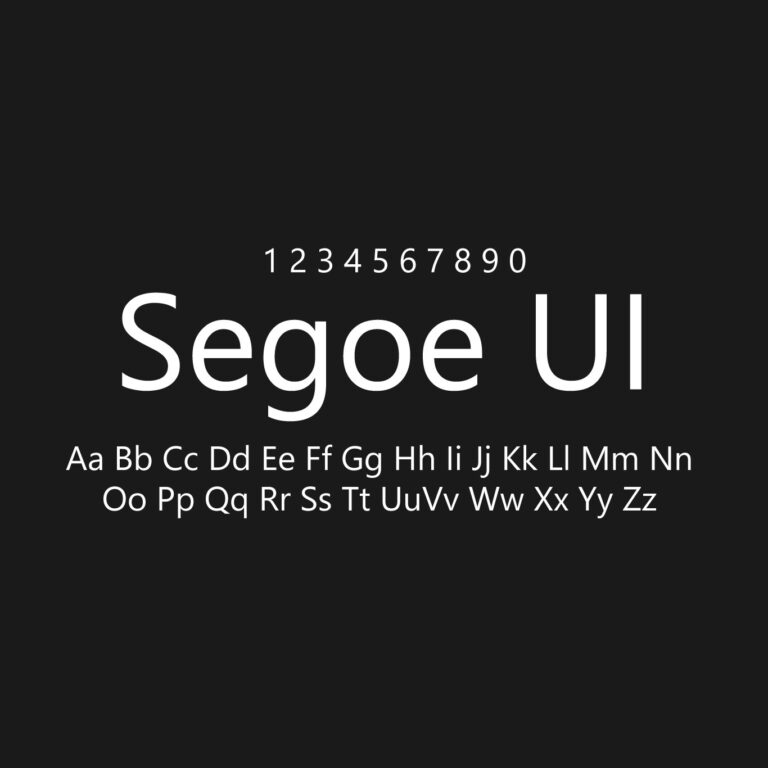
Segoe UI became widely recognized as the system interface font used across Microsoft products, especially in Windows. Unlike purely geometric sans-serif fonts, Segoe UI has a more humanist structure, which gives it a softer and more natural reading rhythm. Its letters feel open, practical, and approachable, making the font especially useful when clarity and usability are more important than decorative style.
The design of Segoe UI works well in both small interface text and larger headings. Regular and Light styles are useful for clean body text, menus, labels, and minimal layouts. Semibold and Bold styles help create hierarchy in buttons, section titles, navigation, and interface components. Black and Black Italic styles provide stronger emphasis for headlines, banners, and display use.
This Segoe UI package includes multiple weights and matching italic styles, making it useful for building a consistent typographic system across digital and print projects. The family can be used for product interfaces, admin panels, brand presentations, documentation, web layouts, and clean editorial compositions where a modern but familiar sans-serif style is needed.
Best use cases
Segoe UI is a strong choice for projects that need clean, readable, and user-friendly typography. It is commonly used in:
- User interface design
- Web apps and dashboards
- Mobile app layouts
- SaaS product pages
- Admin panels and software interfaces
- Website typography
- Presentations and business documents
- Product documentation
- Minimal branding systems
- Clean editorial and corporate layouts
- Buttons, menus, forms, labels, and navigation text
Because Segoe UI was designed with screen readability in mind, it performs especially well in interface-heavy layouts. It is useful for projects where text needs to remain clear at different sizes, from small labels and form fields to larger headings and feature sections.
Why use Segoe UI?
Segoe UI is useful when you want a font that feels modern, familiar, and easy to read. It has a professional appearance without feeling too rigid or technical. This makes it suitable for corporate websites, software products, dashboards, productivity tools, documentation pages, and clean business presentations.
Compared with more geometric fonts, Segoe UI feels warmer and more readable in long interface text. Compared with more decorative sans-serif fonts, it stays neutral and practical. This balance makes it a reliable choice for design systems where usability, consistency, and clarity are important.
The font also works well when paired with simple layouts, soft color palettes, icons, cards, tables, and structured content blocks. Regular, Semilight, and Light styles can create a clean and spacious look, while Semibold, Bold, and Black styles can be used for stronger visual hierarchy.
Design tips
Use Segoe UI Regular or Semilight for body text and interface labels when readability is the main priority. Use Semibold for buttons, navigation items, card titles, and section labels. Bold and Black styles are better suited for headlines, hero sections, banners, and strong emphasis.
For UI design, avoid using too many weights on the same screen. A clean system can usually be built with Regular, Semibold, and Bold. Light and Semilight can be useful for larger text sizes, but they may feel too thin in small sizes depending on the background and display quality.